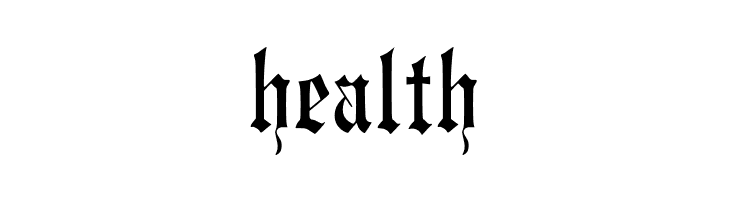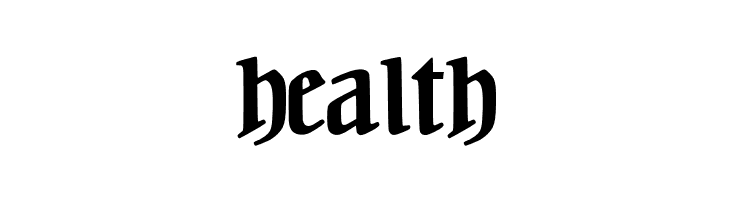
A bold, dramatic blackletter font with intricate detailing and historical elegance.
A bold, ornate blackletter font with a medieval gothic style.
A bold, ornate Blackletter font with a gothic and medieval style.
A classic blackletter font with ornate and intricate design elements.
A bold, decorative blackletter font with intricate details and a vintage gothic style.
A bold, ornate blackletter font with a medieval aesthetic.
A bold, ornate blackletter font with a gothic, medieval style.
A bold, blackletter font with intricate, medieval-inspired letterforms.
A bold, gothic blackletter font with intricate and angular letterforms.